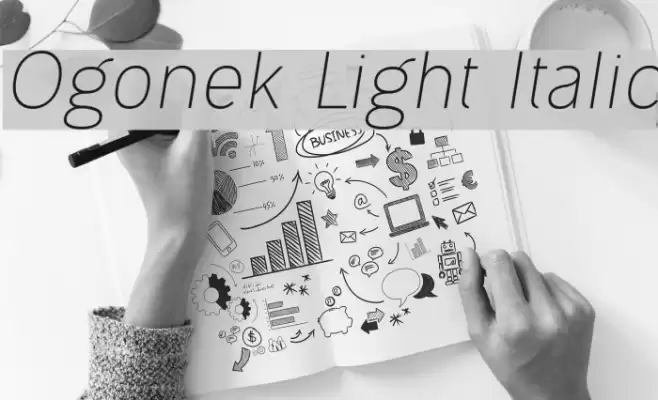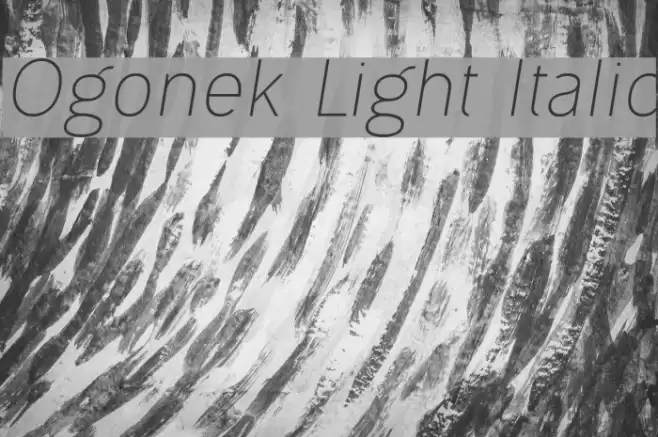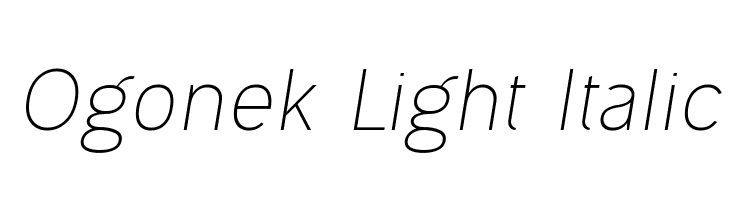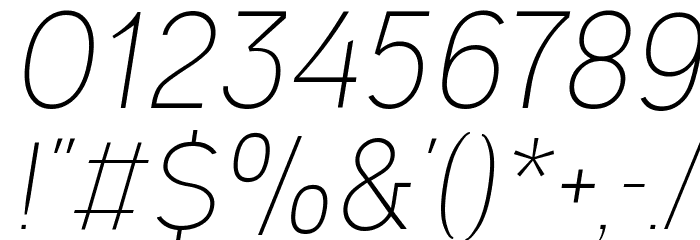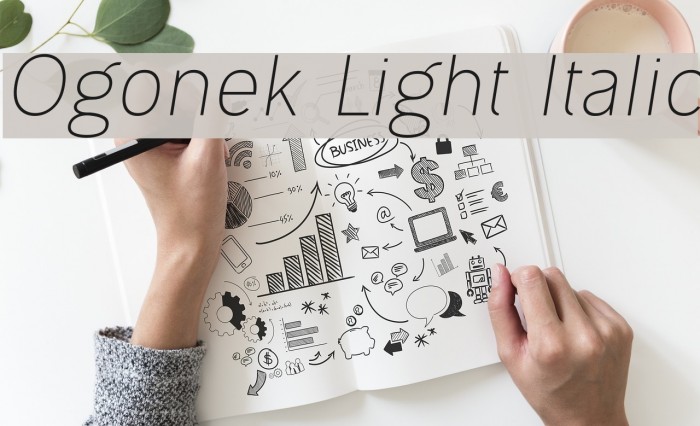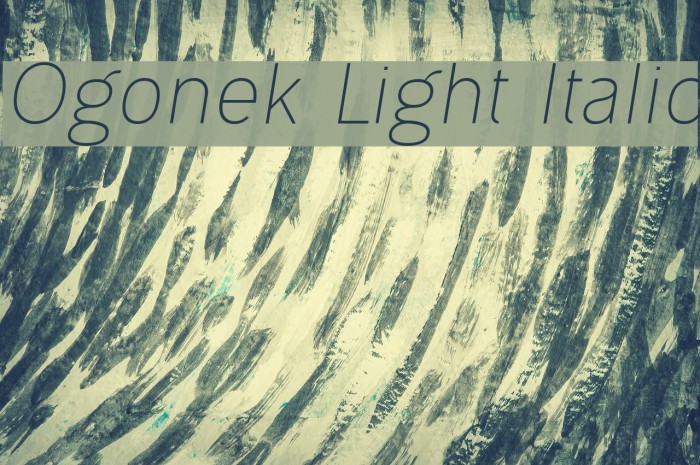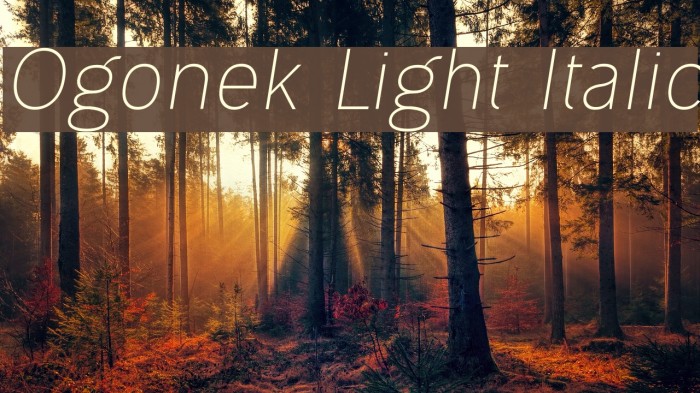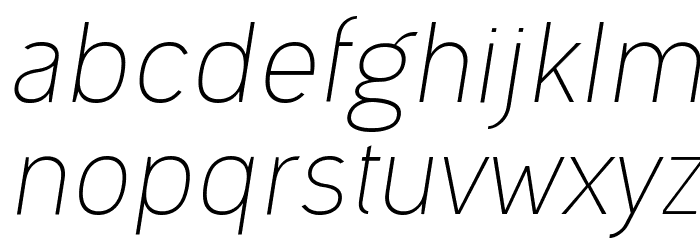
Ogonek Light Italic Font
Ogonek Light Italic Description
This font exhibits a sleek and modern design with a light and airy feel. The italic style adds a sense of elegance and fluidity, making it suitable for sophisticated and contemporary projects. The characters are well-proportioned, with a slight slant that enhances readability while maintaining a stylish appearance. The numerals and special characters are consistent with the overall design, ensuring uniformity across different uses. The font's clean lines and minimalistic approach make it versatile for various applications.
A modern, light, and elegant italic font with sleek lines from Uncategorized fonts.
- Proposed Projects: Ideal for fashion magazines, modern branding, elegant invitations, and minimalist web design.